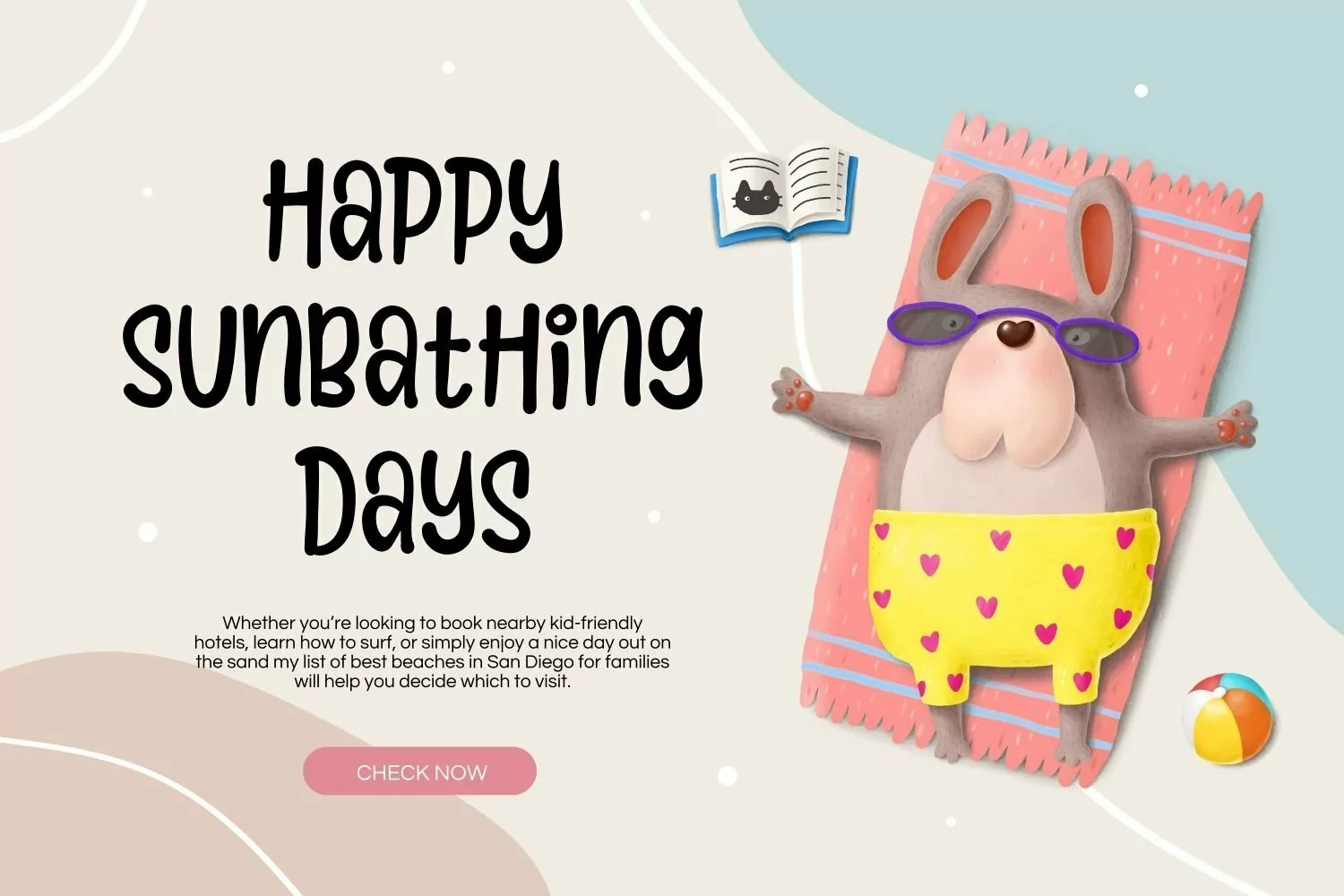
Strange Toy is a fun and playful typeface. It matches applies in some designs such as the logotype, brand, packaging, quotes, kids poster, shirt, children’s book and more custom design. The features uppercase, lowercase, numeral, punctuation & symbol, multilingual support, PUA encoded (fully accessible without additional design software).